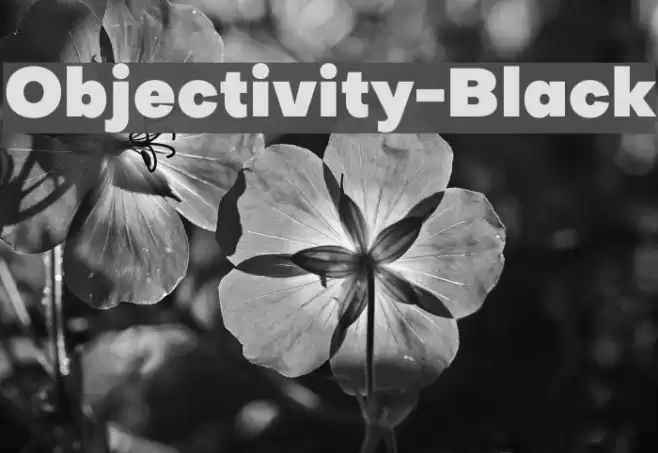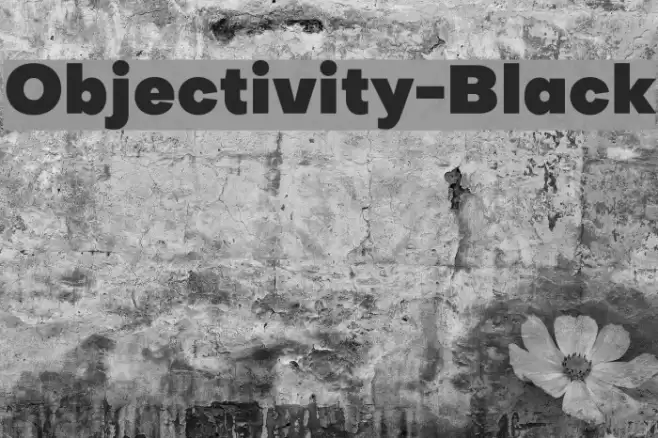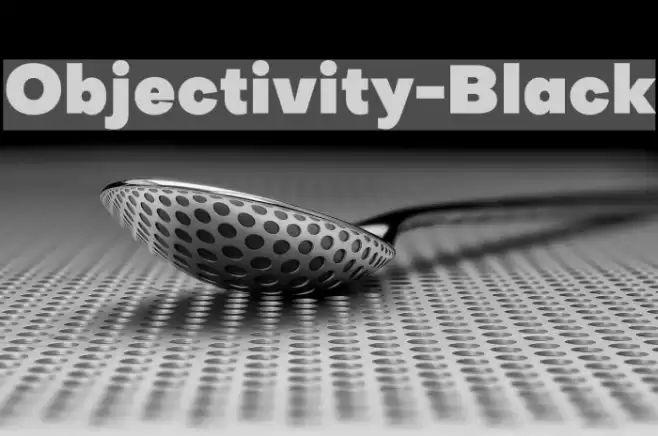
Objectivity-Black Font
Objectivity-Black Description
This font is characterized by its bold and commanding presence, featuring thick strokes and a strong geometric structure. The uppercase letters are uniform in height, creating a cohesive and balanced appearance. The lowercase letters maintain a similar weight, ensuring consistency across all text. Numbers are equally bold, making them stand out prominently. The special characters are designed with the same attention to detail, ensuring they integrate seamlessly with the rest of the font. This font is ideal for making a strong visual impact, with its high contrast and solid form.
A bold, geometric font with strong, uniform strokes from Uncategorized fonts.
- Proposed Projects: Ideal for headlines, posters, branding, and any project requiring a bold statement.